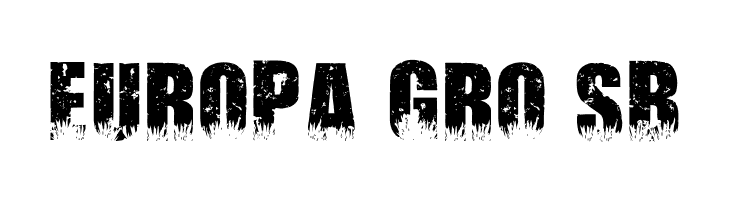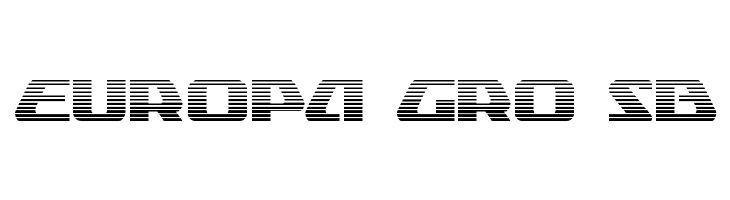
A bold, distressed font with a textured, organic appearance.
A bold, modern font with a unique striped pattern and geometric shapes.
A futuristic, striped font with a bold, digital aesthetic.
A futuristic, striped font with geometric shapes and medium contrast.
A futuristic, line-patterned font with bold, geometric characters.
A bold, modern font with a unique horizontal striped pattern and geometric shapes.
A futuristic, striped font with a modern, digital aesthetic.
A futuristic, bold font with geometric shapes and horizontal line patterns.
A bold, modern font with a unique horizontal striped pattern.